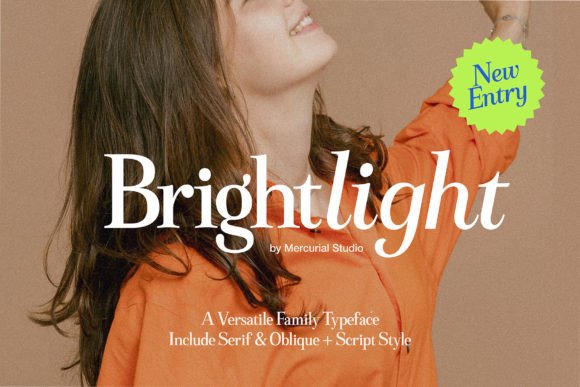
Discover Brightlight Duo Font, the dynamic and versatile display font that ignites your designs with brilliance. This duo, crafted by New Mercurial Studio, is a harmonious blend of classic serifs and swashbuckling scripts, ready to elevate your sports logos to legendary status.
Step into the arena of sports, where passion reigns and competition thrives. Brightlight Duo Font is your secret weapon to create logos that capture the essence of athleticism and ignite the fire of victory. Unleash the power of typography and watch your designs soar to new heights.
Imagine your team's logo emblazoned across jerseys, helmets, and banners, commanding attention and inspiring awe. The bold serifs of Brightlight stand tall and proud, exuding strength and determination, while the flowing script dances with energy, symbolizing the grace and agility of athletes in motion.
Brightlight Duo Font is a versatile champion, effortlessly adapting to various sports disciplines. Whether you're designing for basketball, football, soccer, baseball, or any other sport, this font duo effortlessly captures the unique spirit and energy of each game.
Elevate your designs beyond the ordinary and embrace the brilliance of Brightlight Duo Font. Let your creativity shine as you craft logos that ignite passion, fuel rivalries, and leave an indelible mark on the world of sports. Seize victory with every design, for Brightlight Duo Font is your key to creating logos that stand the test of time and inspire generations of fans.